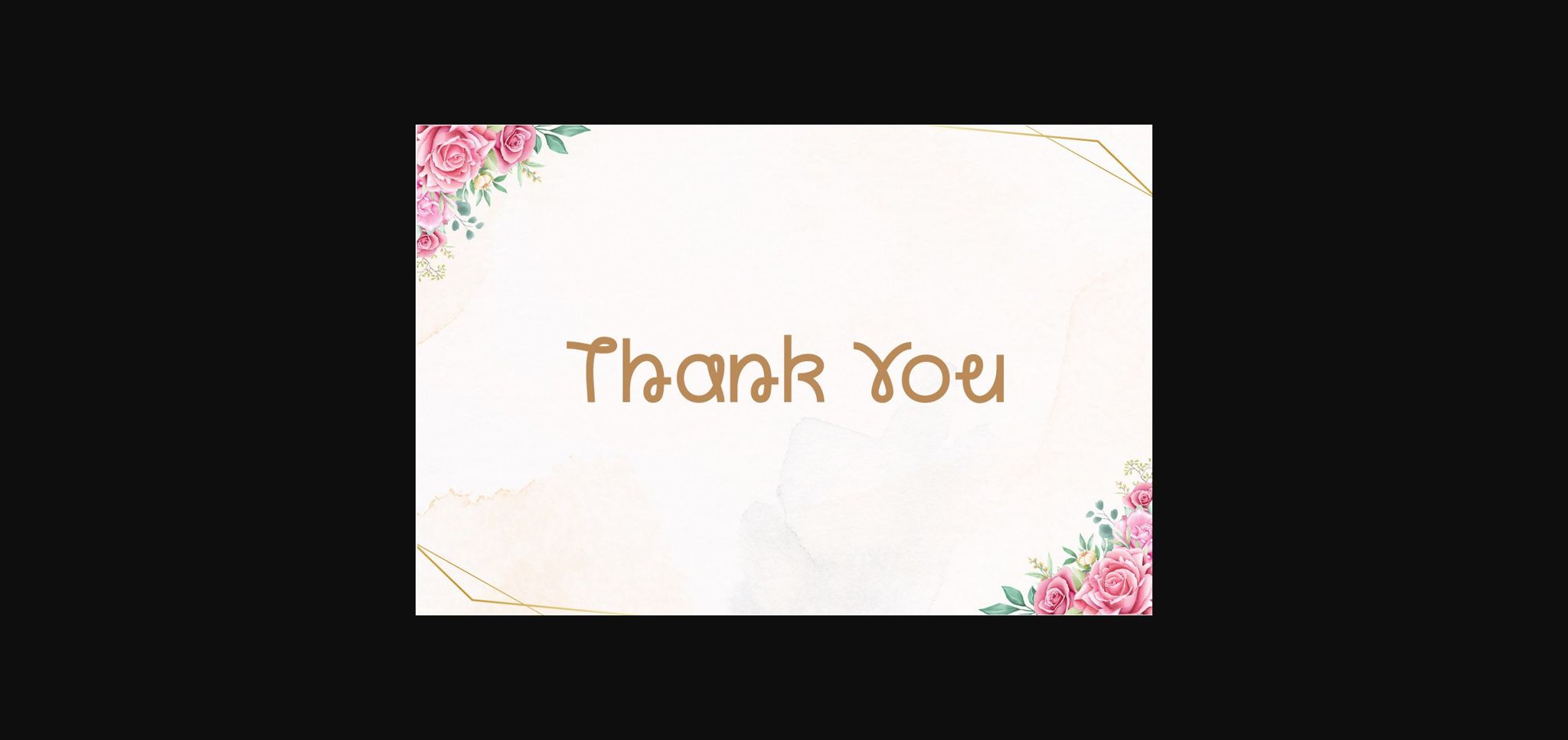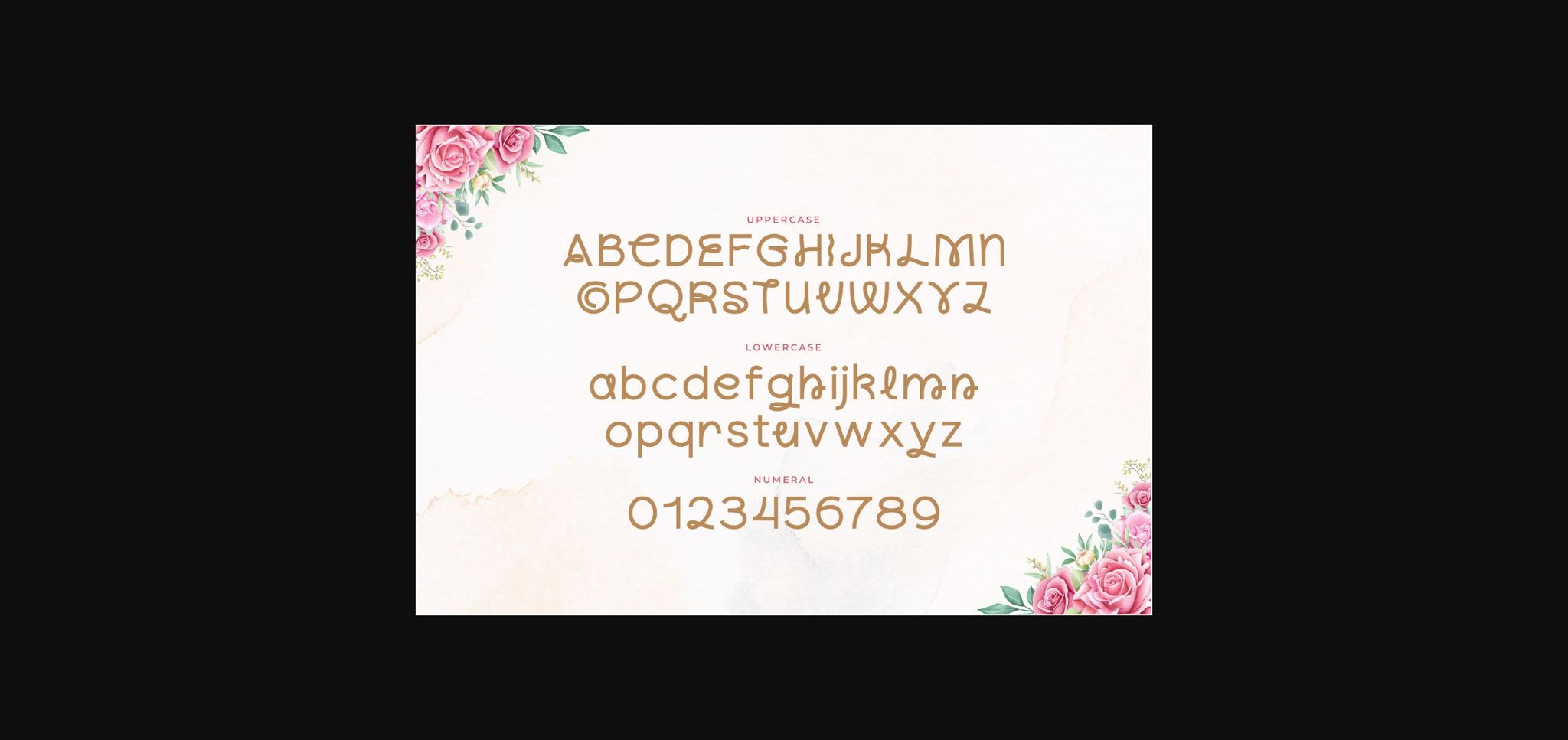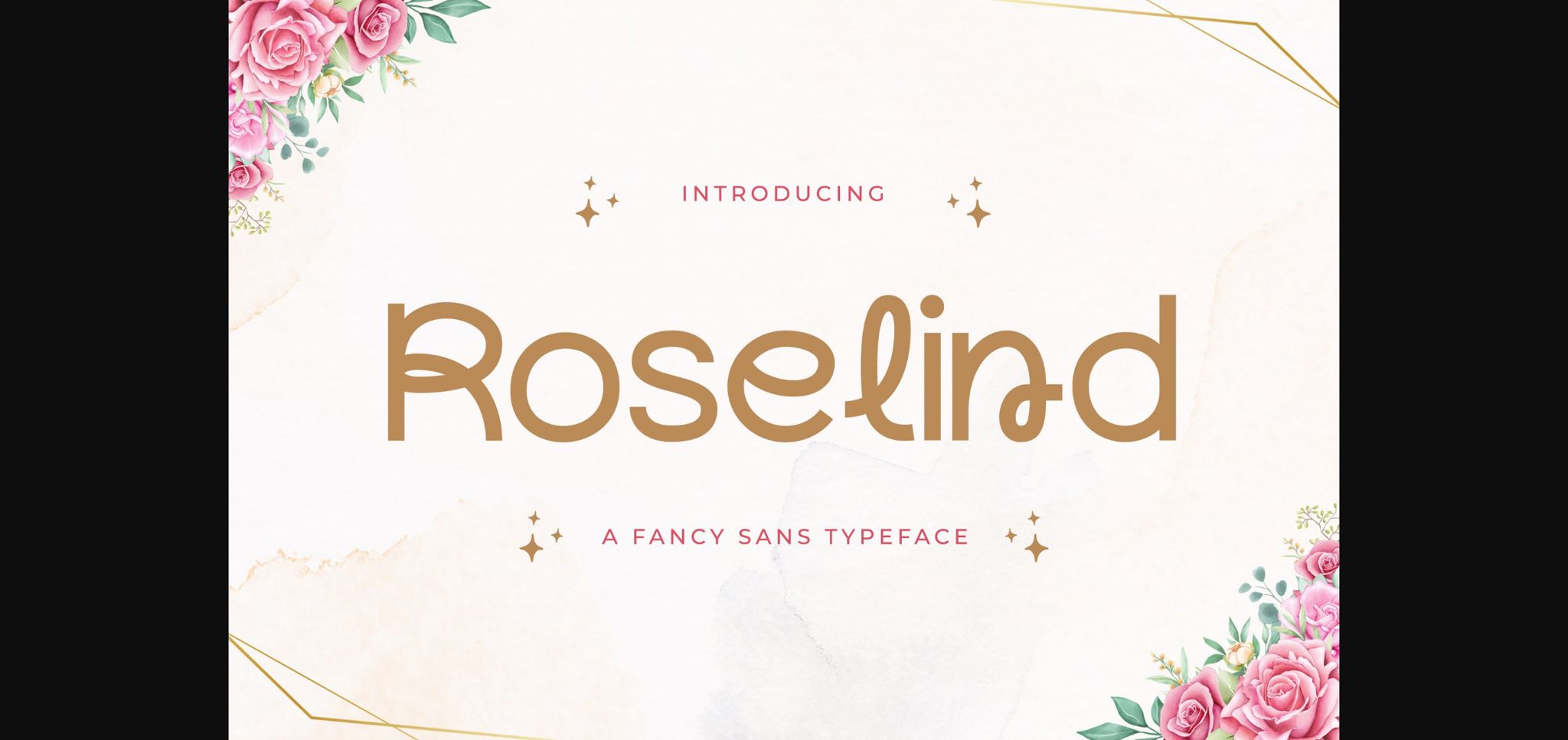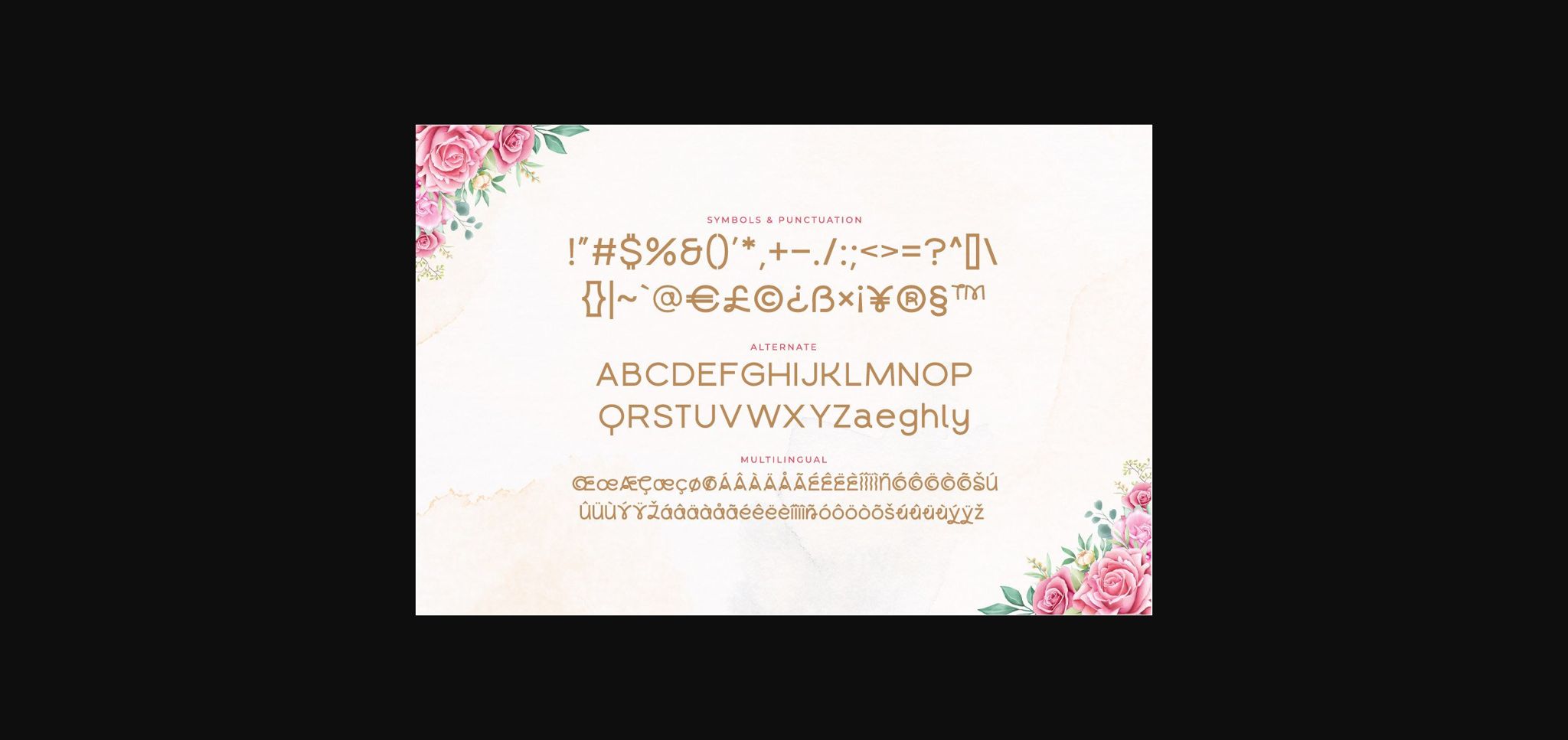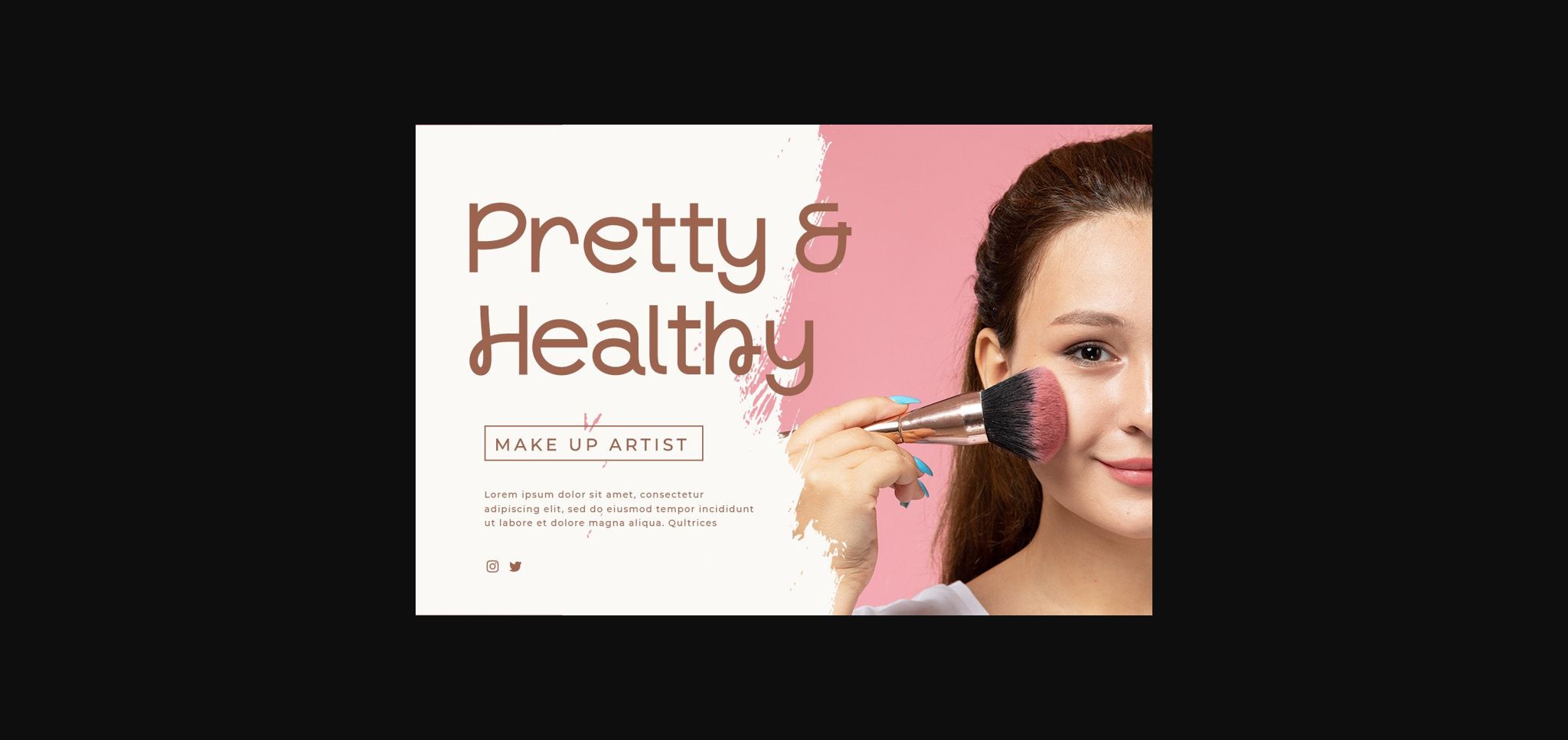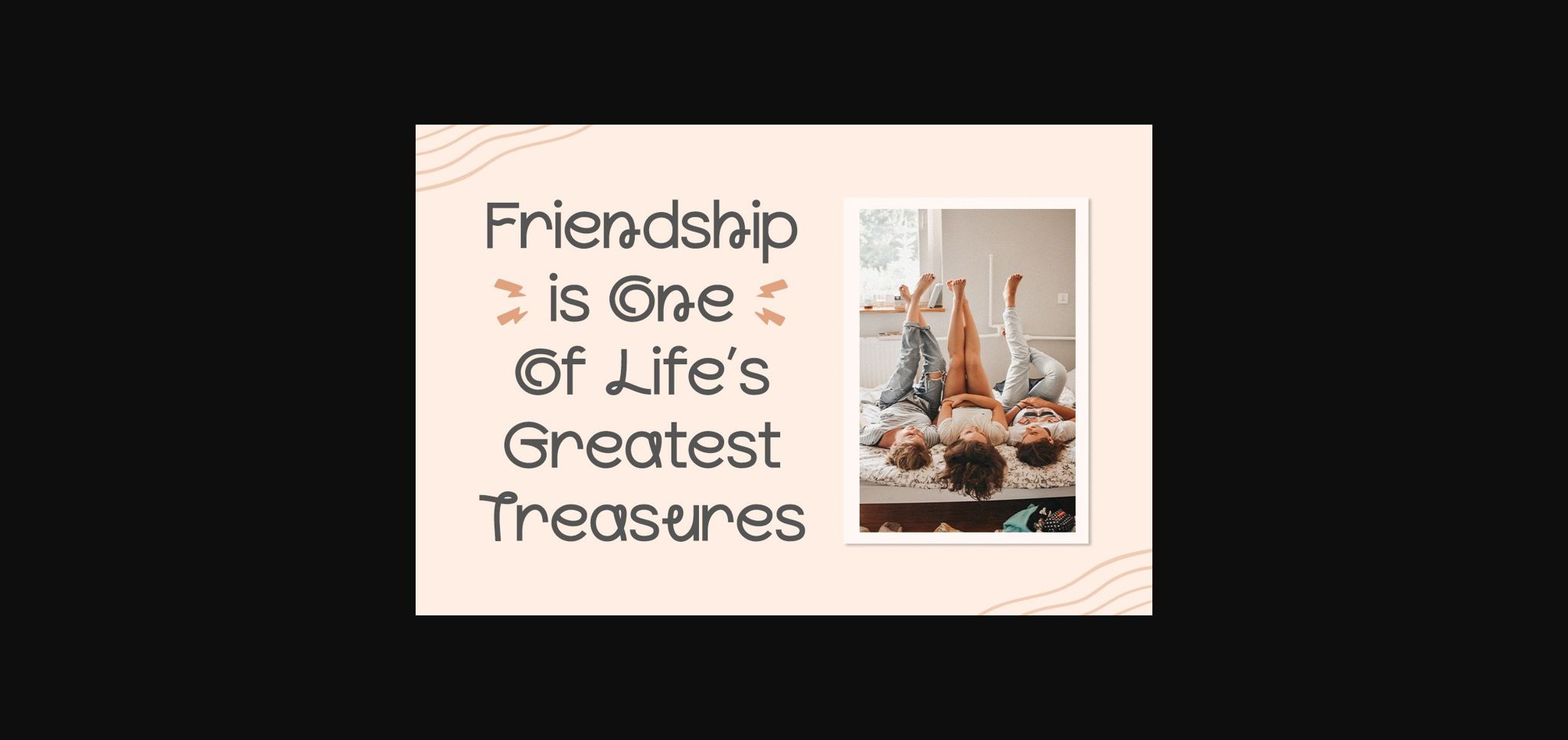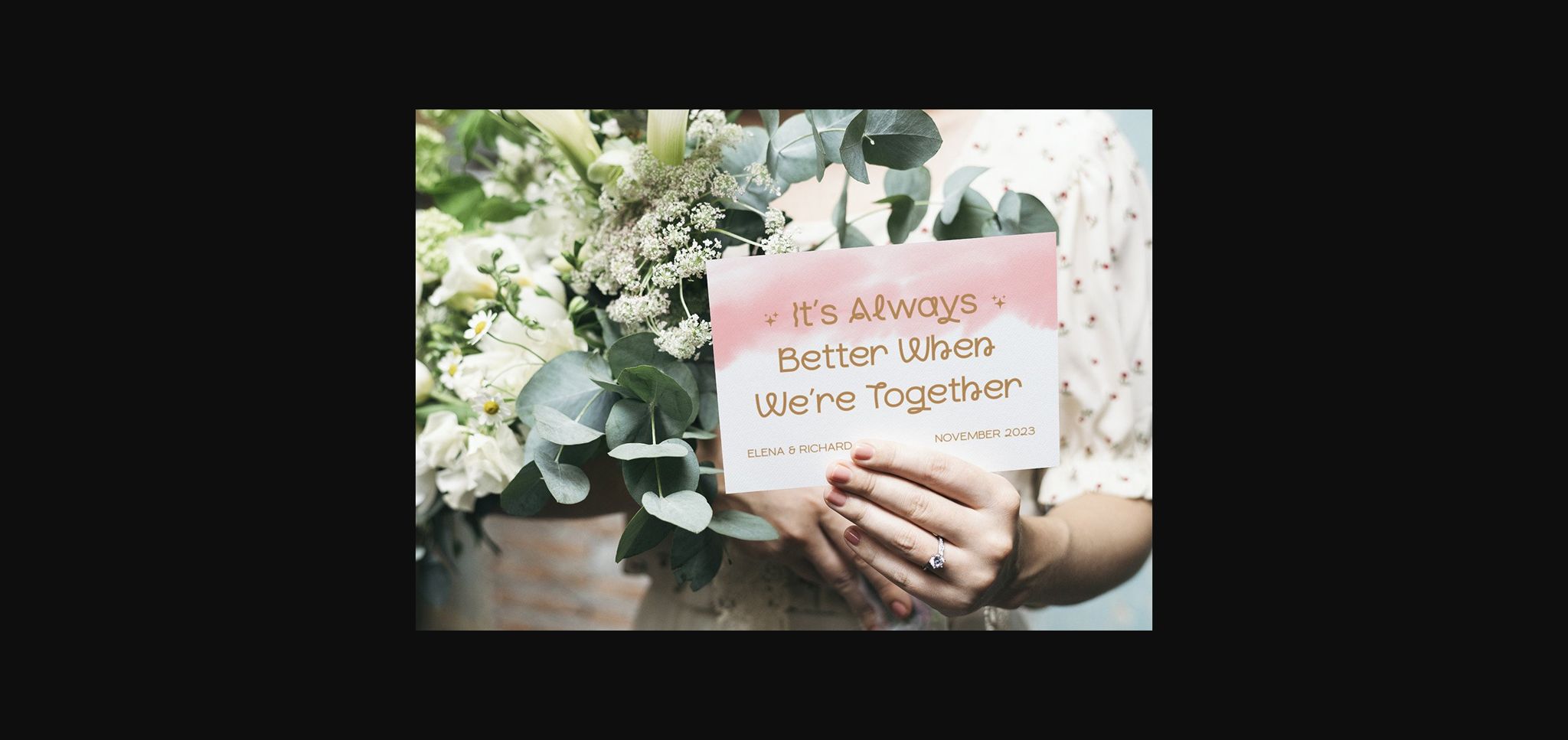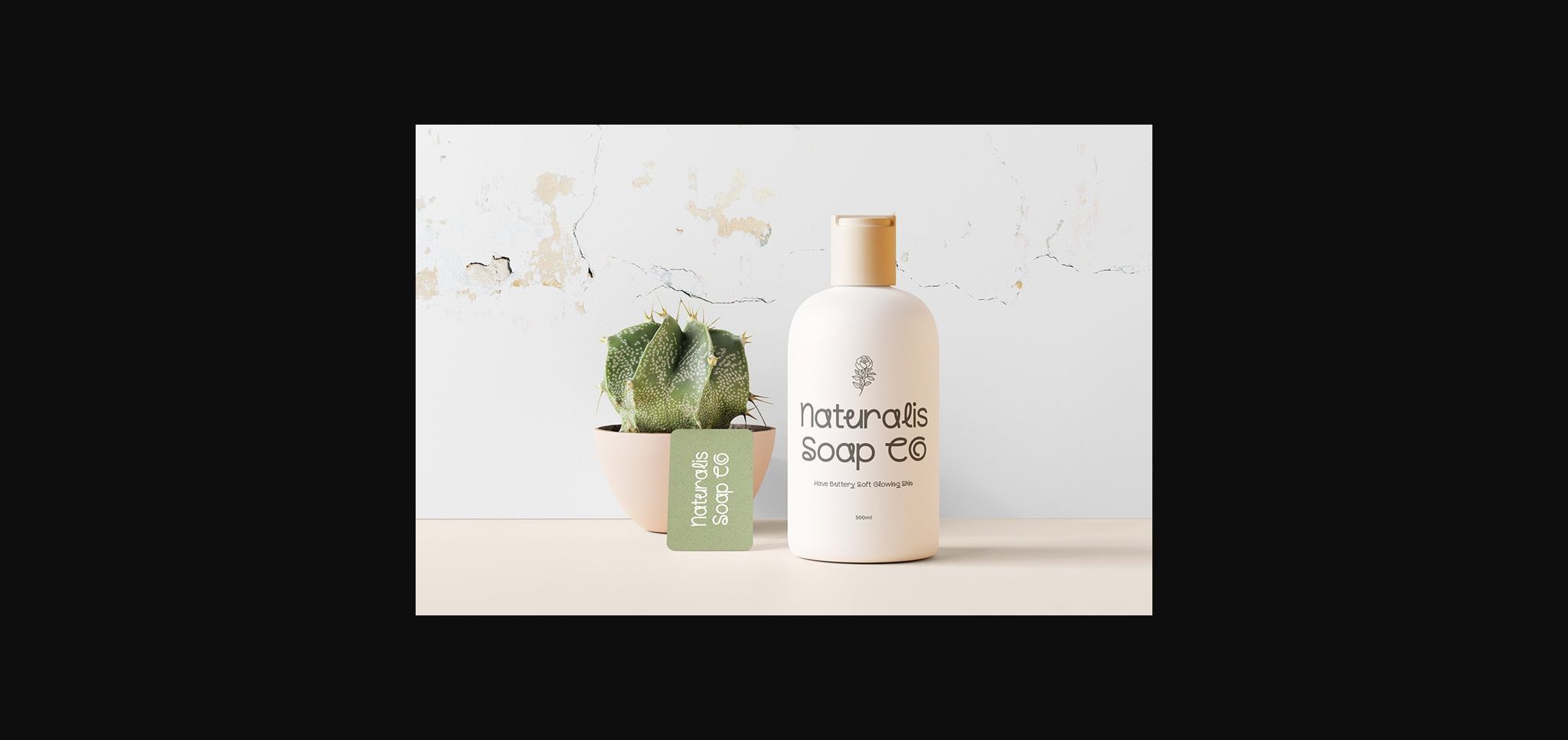
About Roselind Font
Roselind is a fancy, contemporary sans-serif font.
Its casual charm makes it appear wonderfully down-to-earth, readable, and, ultimately, incredibly versatile.
This font will look outstanding in any context, whether it’s being used on busy backgrounds or as a standalone headline!
Its casual charm makes it appear wonderfully down-to-earth, readable, and, ultimately, incredibly versatile.
This font will look outstanding in any context, whether it’s being used on busy backgrounds or as a standalone headline!